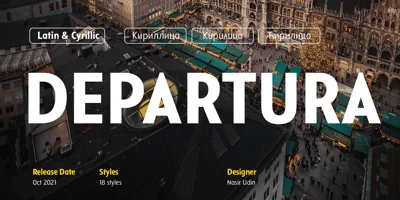
Departura Font
The Departura Font excels in various design applications including travel agency branding, airport terminal marketing, journey planning communications, transportation company materials, departure lounge identities, travel blog promotions, adventure departure signage, journey documentation packaging, travel booking materials, and distinguished travel projects that demand departure authenticity and journey sophistication.
What makes the Departura Font exciting is its dynamic embodiment of travel adventure and departure momentum through letterforms that capture the essence of journey beginnings and the anticipatory excitement of travel experiences. This typeface demonstrates exceptional movement through carefully crafted characters that suggest the forward motion of departure gates, the directional energy of travel signage, and the adventurous spirit that makes travel departures so emotionally stirring and experientially transformative. The font's departure personality makes it perfect for travel companies and transportation organizations seeking to communicate journey authenticity, departure excitement, and the kind of travel anticipation that creates memorable departure experiences through typography that literally moves with travel momentum.
The Departura Font family typically includes directional weight variations that enhance the travel aesthetic, featuring journey-inspired styling options and extended character sets optimized for transportation communications and travel applications. These family options often include departure-inspired alternates, travel symbols, and journey decorative elements that provide designers with comprehensive tools for creating authentically travel-focused typography that celebrates departure culture while maintaining contemporary design appeal and transportation credibility.
Travel professionals and transportation organizations consistently select Departura Font for projects requiring typography that communicates travel authenticity and departure sophistication. This typeface delivers exceptional performance in travel marketing, transportation branding, and journey communications where establishing movement and creating departure atmosphere is essential for travel engagement. The font's departure character makes it particularly effective for airport and booking applications. Download Departura Font today to access this dynamically adventurous typeface that transforms travel communications with its departure elegance and journey sophistication, creating compelling travel experiences that honor the magnificent excitement of journey beginnings while celebrating the adventurous momentum that defines authentic travel culture and departure excellence.